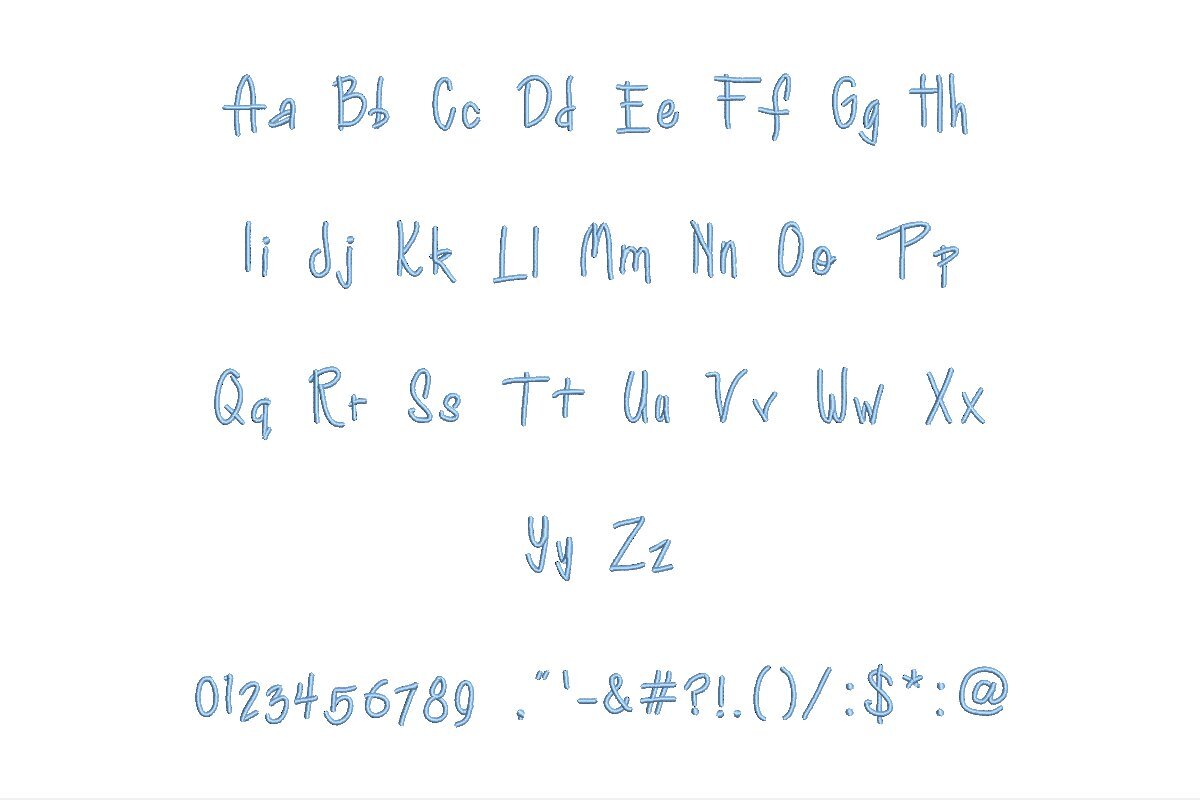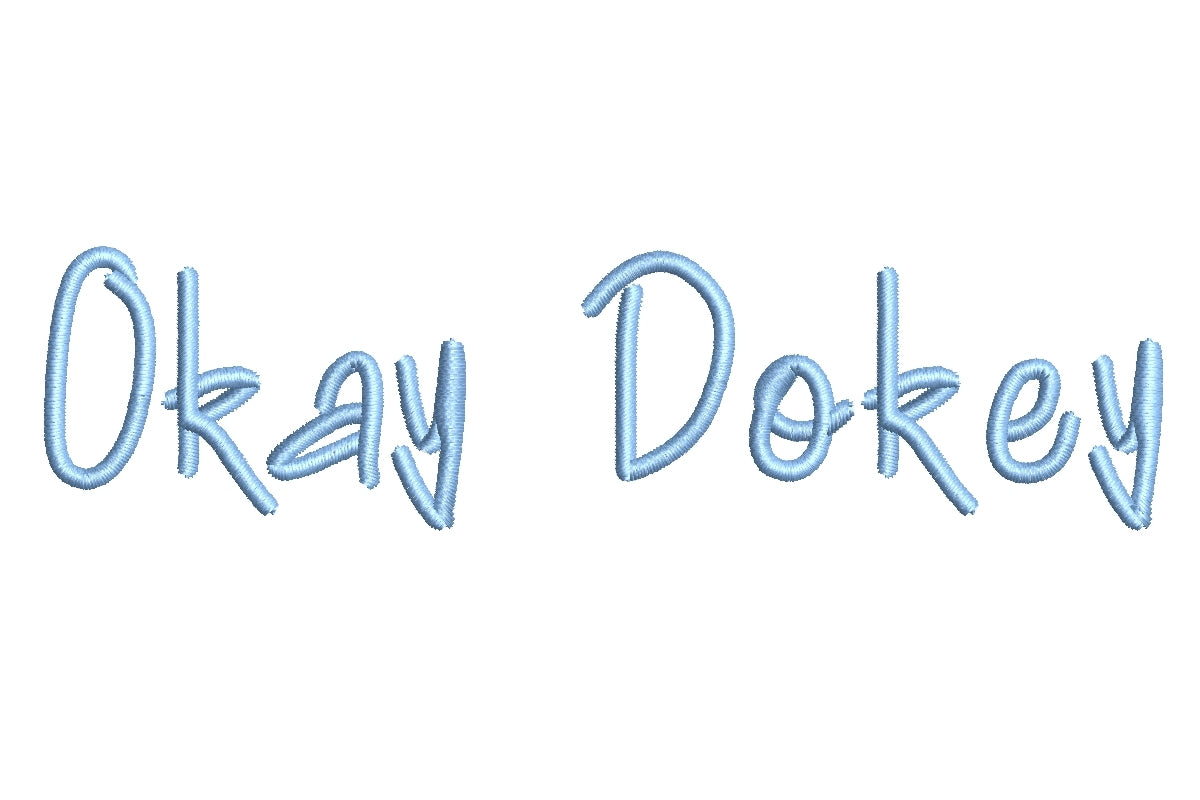
Unleash your creative potential with Okey Dokey Medium ESA font, tailored for Wilcom Studio e4.5.6 and Hatch 3 versions and beyond. This font epitomizes compatibility and precision, providing impeccable stitching quality for your embroidery projects. Its versatile design exudes a timeless charm and impeccable readability. The ESA format ensures accurate digitization, seamlessly integrating with both Wilcom Studio and Hatch. From monograms to logos and text, this font simplifies your design process, bringing unrivaled clarity and style to your creations. Elevate your embroidery endeavors to professional heights with Okey Dokey Medium ESA font, the quintessential choice for discerning artisans.